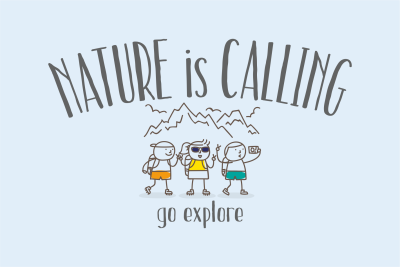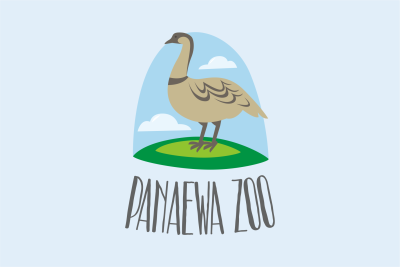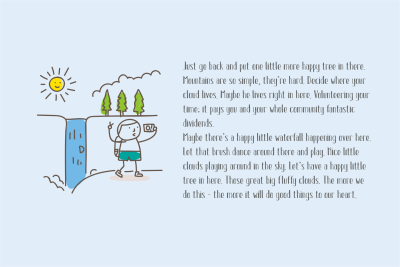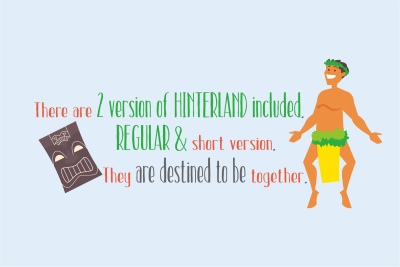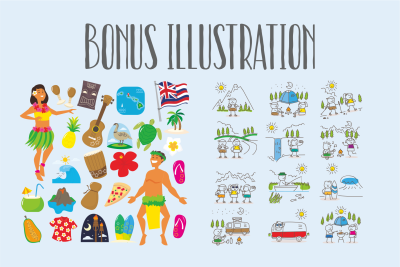
Handwriting Font Hinterland is a lively, nature-inspired typeface that brings the spirit of adventure and exploration to any design. With tall, slightly irregular strokes and unique letter shapes, Hinterland has a handcrafted feel thatโs both playful and stylish. This font captures the vibe of the outdoors, travel, and tropical themes, making it ideal for projects with a natural or adventurous focus. Each letter is crafted with subtle imperfections, creating an authentic look that feels connected to nature. Hinterlandโs casual flow works well with both vibrant and minimalistic backgrounds, allowing it to fit seamlessly into a variety of creative projects.
The fontโs handwritten style reflects the beauty of nature, evoking feelings of escape and exploration. Hinterland shines in headlines, posters, and display text, where its tall, narrow proportions create dynamic layouts. The font pairs well with decorative elements like flowers or tropical illustrations, enhancing its adventurous, exotic feel. Its balanced design and clean readability make it suitable for digital and print projects alike.
Handwriting Font Hinterland is perfect for designers, travel agencies, and lifestyle brands seeking an adventurous look. This font works well for brands focused on travel, outdoor activities, and eco-friendly products. For example, Hinterland is ideal for logos and promotional materials for travel companies, adventure gear, or tropical resorts. Its organic look appeals to audiences drawn to exploration and natural beauty, making it an excellent choice for brands with these themes.
Social media creators, especially travel and lifestyle influencers, can use Hinterland to create eye-catching posts. Its bold, unique appearance is great for quotes, headers, and titles that inspire exploration. Additionally, Hinterland suits digital content promoting eco-tourism, vacation spots, or wellness retreats, enhancing the connection to nature.
Event planners and marketers can use Hinterland for outdoor or nature-themed events, such as beach parties, jungle-themed gatherings, or eco-friendly fairs. The font works well on posters, signage, and invitations, creating a visual theme that aligns with an adventurous spirit. For print projects, Hinterland adds charm to postcards, flyers, and merchandise, especially for tropical or nature-inspired collections.
Hinterland is also great for DIY projects like scrapbooks, holiday cards, or custom gifts. Its playful, handcrafted style adds a personal touch, making designs feel warm and inviting. Small businesses with a focus on handmade or sustainable products can use Hinterland for branding, adding a unique, earthy appeal.